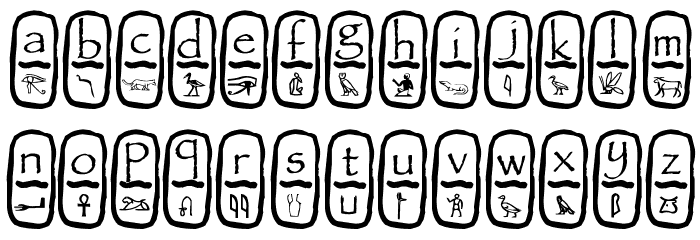
Cartouche Font
This font is a unique blend of modern typography and ancient Egyptian hieroglyphic elements. Each character is encased in an oval cartouche, reminiscent of the inscriptions found in ancient tombs and monuments. The uppercase and lowercase letters, as well as numbers, are paired with hieroglyphic symbols, creating a visually striking and culturally rich design. The font maintains a consistent style with bold outlines and a hand-drawn aesthetic, giving it an authentic and historical feel. The characters are evenly spaced within their cartouches, providing a balanced and harmonious appearance. This font is perfect for projects that aim to evoke a sense of mystery, history, or cultural depth.
A decorative font combining modern letters with ancient Egyptian hieroglyphs in cartouches.
- Proposed Projects: Ideal for historical documentaries, museum exhibits, themed event invitations, or educational materials about ancient Egypt.
- Overall Style: Decorative
- Use Case: Logos, Headlines, Themed Designs